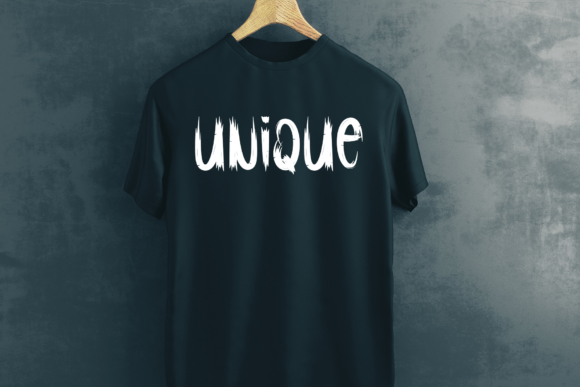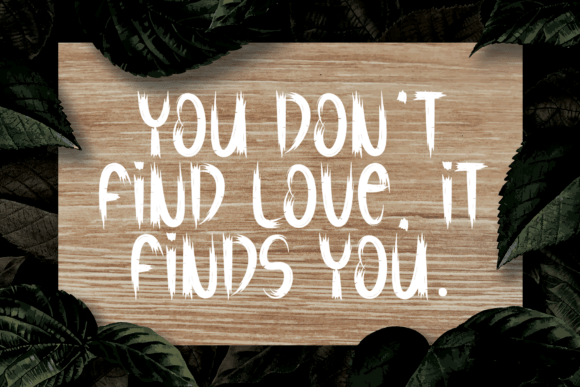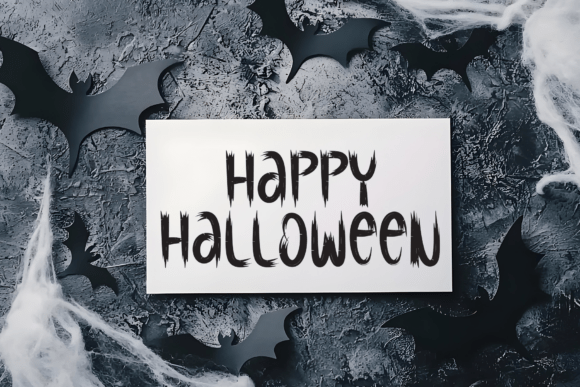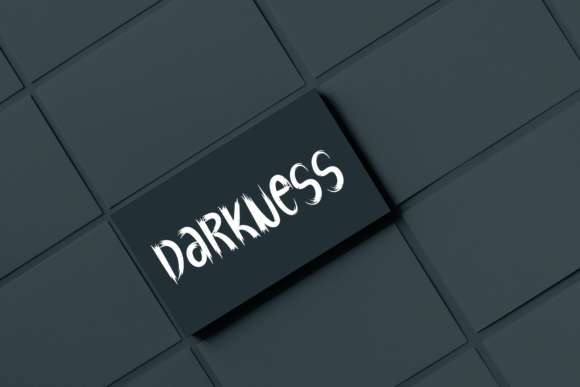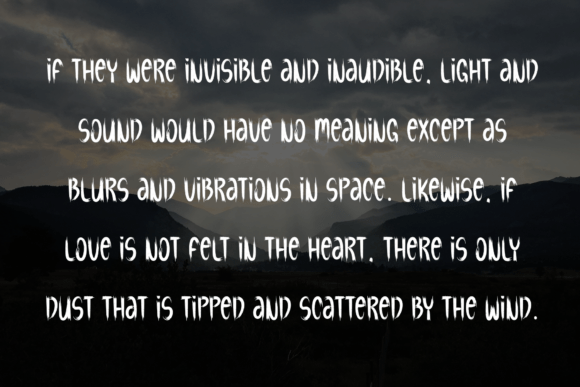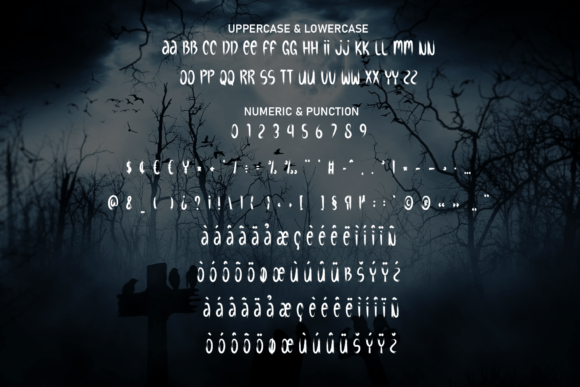
Have you ever been in the midst of a design project, pouring your heart and soul into every detail, only to feel like something is missing? You’ve got the perfect concept, the ideal color palette, and the perfect message, but it’s just not coming together the way you envisioned. That’s where the right font can make all the difference.
Enter the Haunted Night Font, a charming handwritten display font that’s designed to add a touch of whimsy and friendliness to your designs. With its sweet and playful charm, this font is perfect for capturing the joy and romance of life. Whether you’re working on a wedding invitation, a card, or any other design project, the Haunted Night Font is sure to elevate your creations to new artistic heights.
Haunted Night Font Key Features
- Font Family: Haunted Night Font is a unique, hand-drawn font designed for various applications.
- Unique Characteristics: The Haunted Night Font features a spooky, eerie feel with intricate details and textures, perfect for Halloween-themed designs and projects.
- Characters and Glyphs: Includes a wide range of characters, including uppercase and lowercase letters, numbers, and special characters.
Haunted Night Font Review
Overall, I think Haunted Night Font has some nice elements, but it’s not without its limitations. Here’s my honest review:
- Spooky ambiance: The font effectively conveys a spooky and mysterious atmosphere, perfect for Halloween-themed projects or horror-related content.
- Unique flair: The font’s distinctive design elements, such as the bold lines and pointed accents, give it a unique and eye-catching look.
- Wide character set: The font includes a wide range of characters, including uppercase and lowercase letters, numbers, and punctuation marks.
- Readability issues: The font can be difficult to read, especially at smaller font sizes, due to its complex design and limited contrast between letters.
- Limited font sizes: The font may not be suitable for larger font sizes, as it can become overwhelming and difficult to read.
- Not ideal for body text: Due to its complex design and readability issues, I would not recommend using Haunted Night Font for body text or large blocks of text.
Overall, I think Haunted Night Font is a nice addition to any designer’s toolkit, but it’s best suited for specific projects that require a spooky or mysterious atmosphere. With some careful use and consideration, it can add a unique touch to your designs.
Haunted Night Font Practical Application Guide
The Haunted Night Font is perfect for:
- Halloween-themed designs and decorations.
- Spooky and eerie branding and marketing materials.
- Horror-themed video games and movies.
Alternatives to Haunted Night Font
Ghostly Script
A cursive font with a spooky and mysterious feel, perfect for titles, quotes, and other design elements that require a sense of eeriness. Ghostly Script is more delicate and intricate compared to Haunted Night Font, making it suitable for designs that need a touch of sophistication.
Creepy Carolines
A bold and playful font with a mix of gothic and vintage elements, ideal for designs that require a sense of fun and mischief. Creepy Carolines is more energetic and whimsical compared to Haunted Night Font, making it suitable for projects that need a lighthearted tone.
Macabre Mono
A monospaced font with a dark and industrial feel, perfect for designs that require a sense of grit and realism. Macabre Mono is more minimalist and utilitarian compared to Haunted Night Font, making it suitable for projects that need a clean and functional aesthetic.
Shadowed Sans
A sans-serif font with a subtle shadow effect, ideal for designs that require a sense of depth and dimensionality. Shadowed Sans is more subtle and understated compared to Haunted Night Font, making it suitable for projects that need a sense of sophistication and elegance.
What is the recommended font size for using the Haunted Night Font?
The Haunted Night Font is designed to be versatile and can be used at a wide range of font sizes. However, for optimal readability, we recommend using font sizes between 12pt and 24pt. This will help ensure the font looks its best and is easy to read.